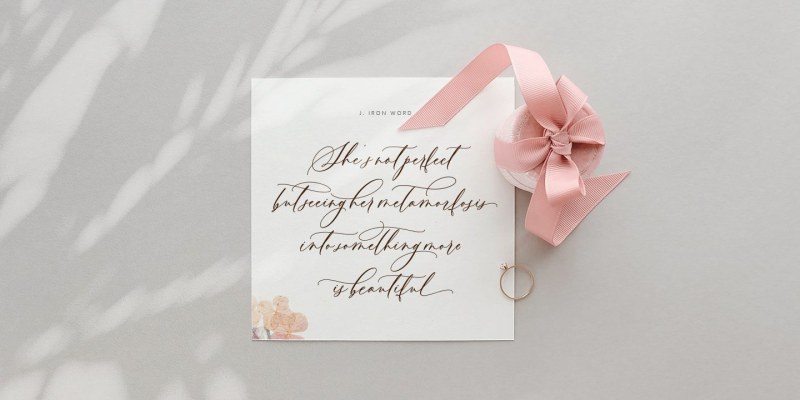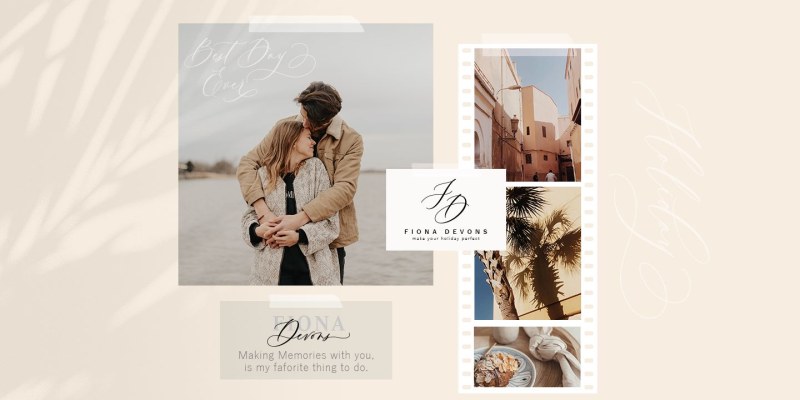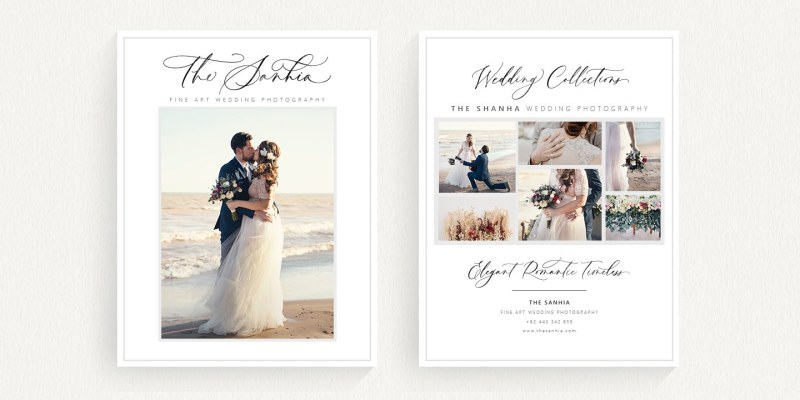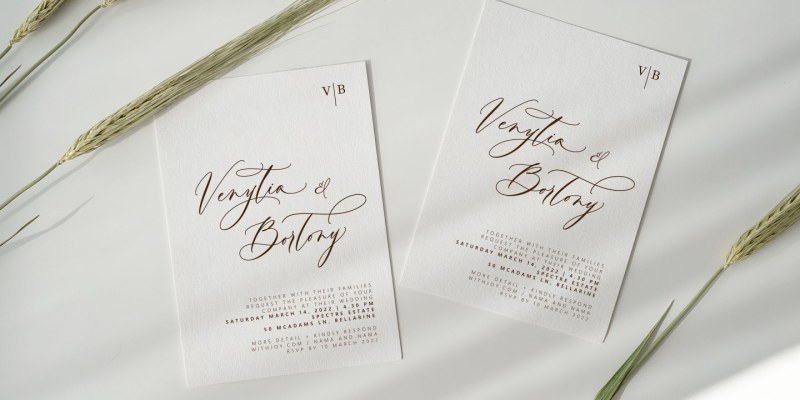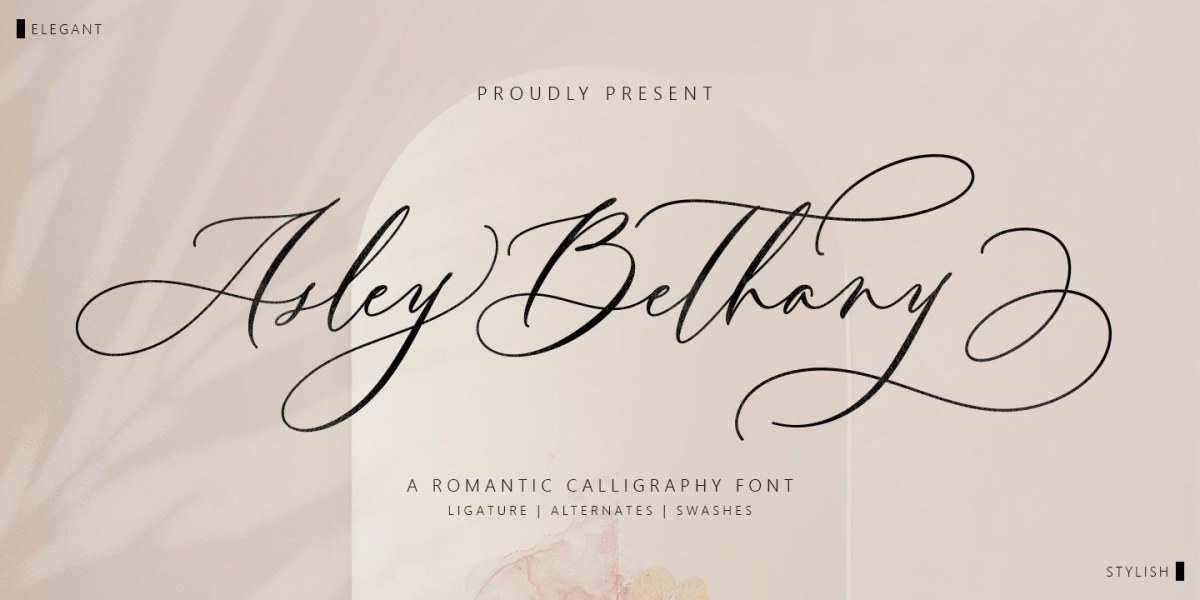
Asley Bethany Font
Asley Bethany is a beautiful modern calligraphy script font suitable for branding, wedding invitations, greeting cards, posters, name card, quotes, blog header, logo, fa…
Asley Bethany is a beautiful modern calligraphy script font suitable for branding, wedding invitations, greeting cards, posters, name card, quotes, blog header, logo, fashion, apparel, letter, stationery and other projects.
Asley Bethany comes with 600+ glyphs. The alternative characters were divided into several Open Type features such as Swash, Stylistic Sets, Stylistic Alternates, and Contextual Alternates. The Open Type features can be accessed using Open Type programs such as Adobe Illustrator, Adobe InDesign, Adobe Photoshop Corel Draw X version, And Microsoft Word. This font has been given PUA unicode (specially coded fonts). So that all the alternate characters can easily be accessed in full by a craftsman or designer.
Where Asley Bethany Font works best
Asley Bethany Font brings a personal, handwritten warmth to invitations, menus and place cards.
Craft brands — coffee, cosmetics, bakery — use scripts like Asley Bethany Font for signature-style logos and labels.
Pair Asley Bethany Font with a plain sans for quotes, stories and Pinterest pins that feel handmade.
What is Asley Bethany Font good for?
Asley Bethany Font is a Script And Handwritten typeface tagged Branding, Calligraphy, Modern, Poster. It works well for headlines, logos, posters, social media graphics and branding projects that need a distinctive script and handwritten look.